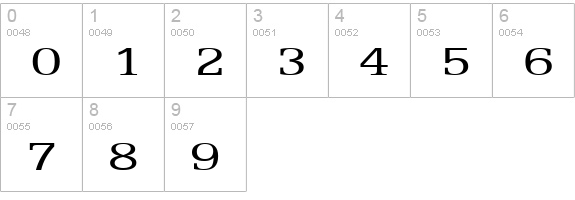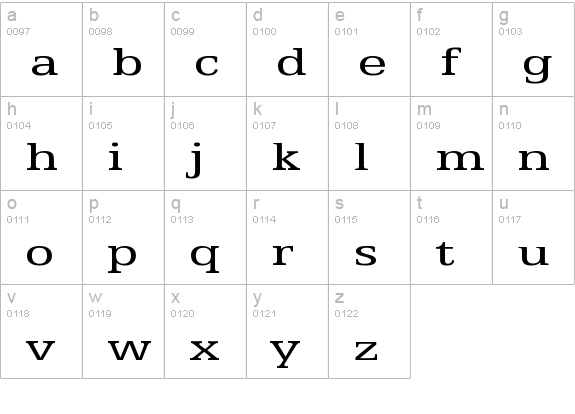
Eggo Extended Normal Font Details
Eggo Extended Normal is the standard, neutral, extended-width variant in the Eggo typeface family \xE2\x80\x94 well suited to general body text, paragraphs, and standard typographic work.
Eggo Extended Normal font is a versatile and stylish typeface that adds a touch of elegance to any design project. With its clean lines and balanced proportions, this font is perfect for both headings and body text. The extended width of the characters gives it a modern and sophisticated look, making it ideal for a wide range of applications. Whether you're designing a logo, creating a poster, or crafting a website, Eggo Extended Normal font will help you achieve a professional and polished look. Its clear and legible letterforms ensure readability, while the subtle details and curves add a unique touch of personality. One of the best things about Eggo Extended Normal font is that it is free! Yes, you read that right. This font is freely available to download at FontsMarket.com. Whether you're a professional designer or a hobbyist, you can enjoy the benefits of this high-quality typeface without spending a dime. Downloading and installing Eggo Extended Normal font is a breeze. Simply visit FontsMarket.com, locate the font, and click on the download button. Within seconds, you'll have access to this versatile font and can start using it in your design projects. So why wait? Add a touch of sophistication and elegance to your designs with Eggo Extended Normal font. Download it for free today at FontsMarket.com and unlock a world of creative possibilities.